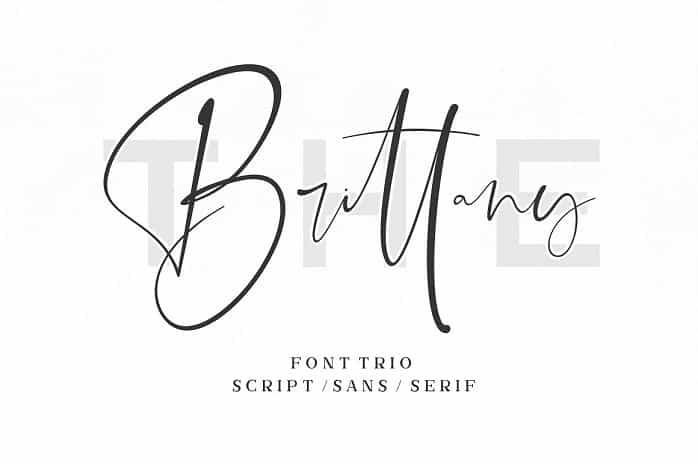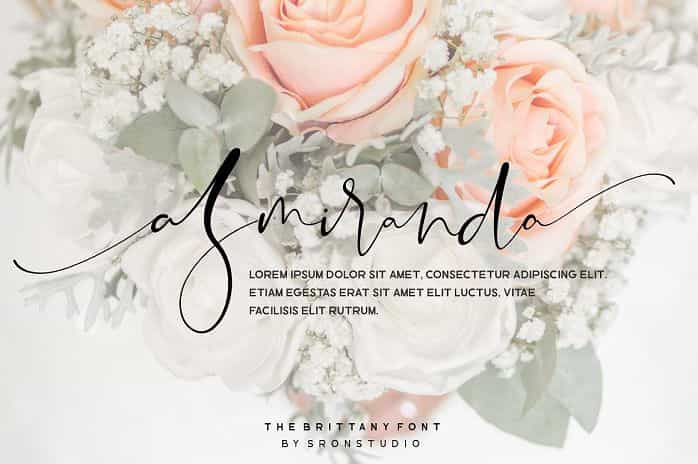
Discover The Brittany Font Trio, part of the Calligraphy Handwritten collection—a versatile and unique font perfect for adding a personal touch to your projects. Download it for free and enjoy crafting designs with style, from invitations to social media posts. This font is available exclusively for personal use, giving you the freedom to create without limits. Unlock your creativity with The Brittany Font Trio today!
Introducing Brittany font Family. Sronstudio is the design studio behind the elegant Brittany. A font trio that oozes elegance is the Brittany. Paired together, these styles create a perfect outfit. The tool offers a chance to generate sophisticated and contemporary designs, every time you use it. The Brittany font is a popular choice for watermarking photography, signature or signature logo design, quotes, album covers, business cards, and other design projects.